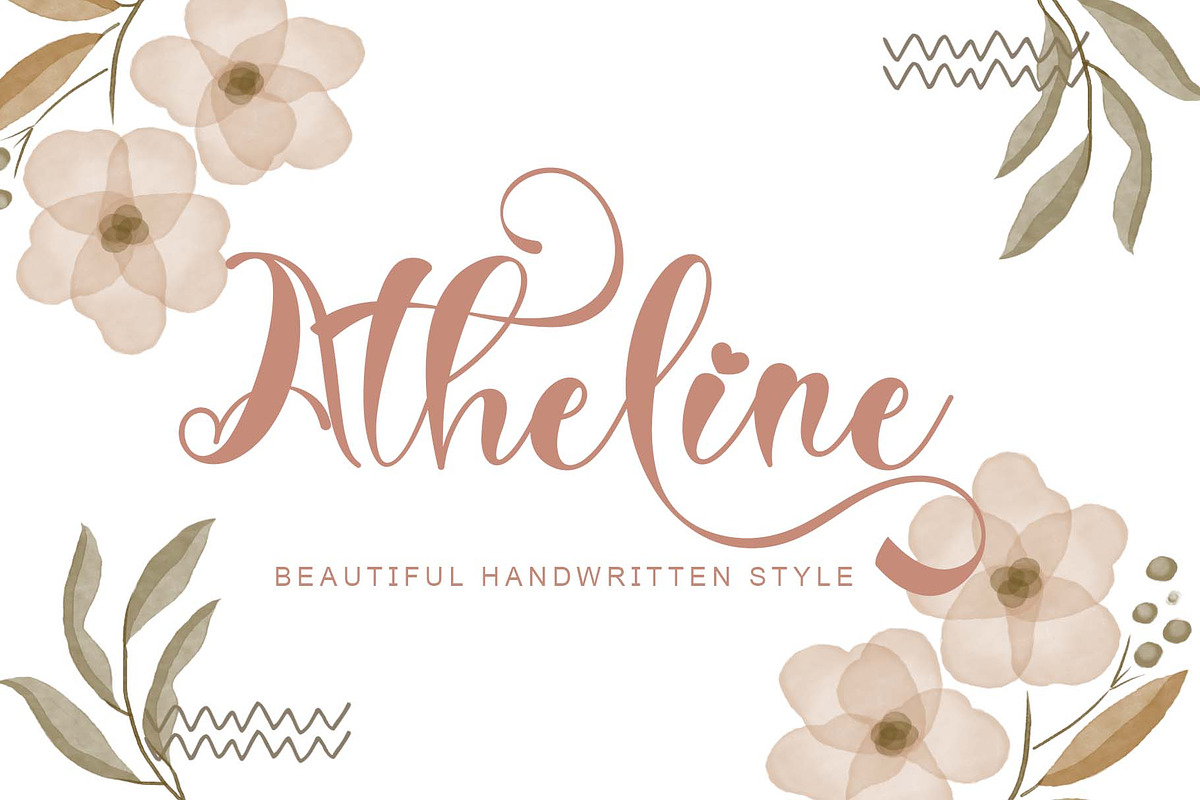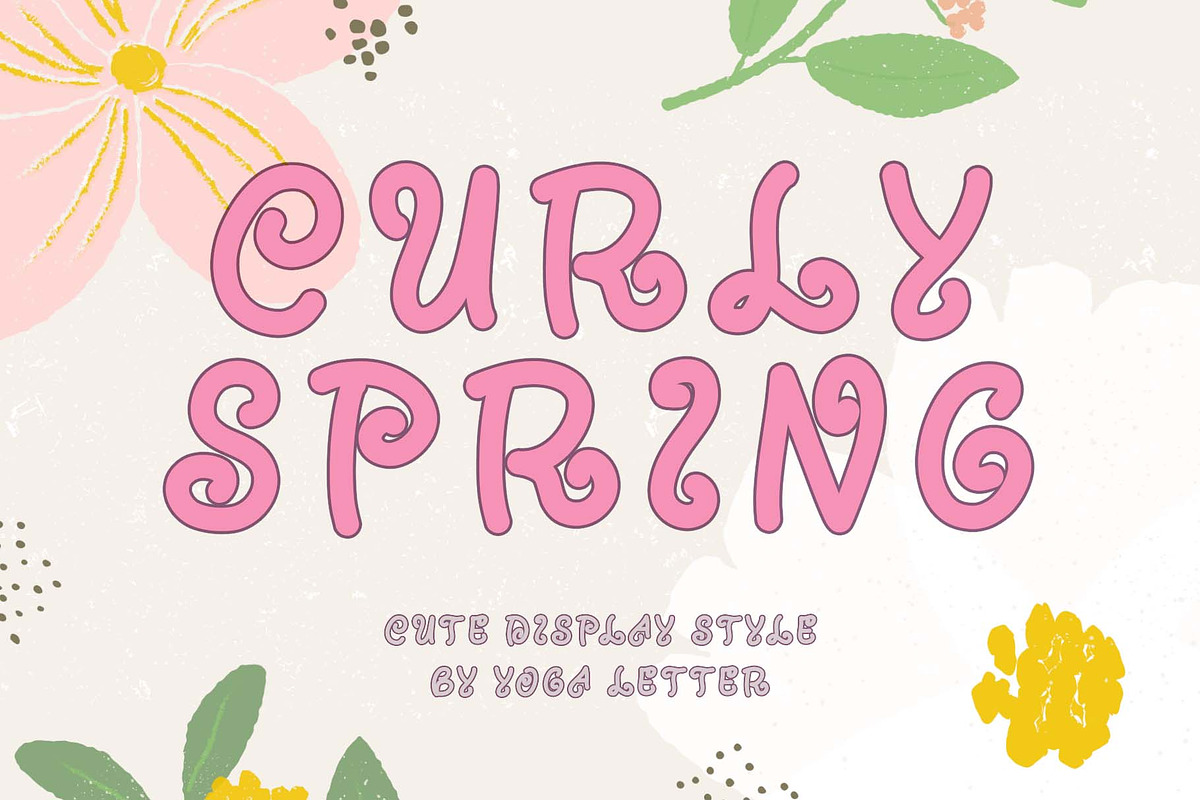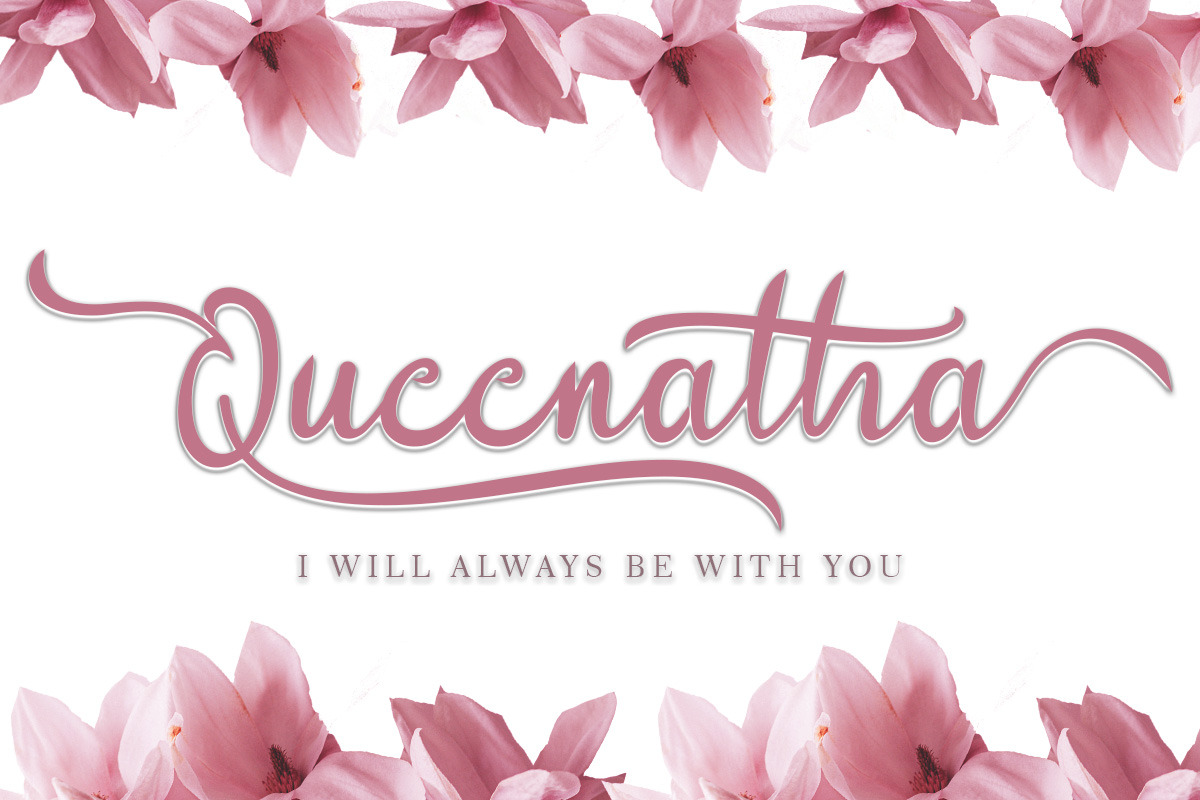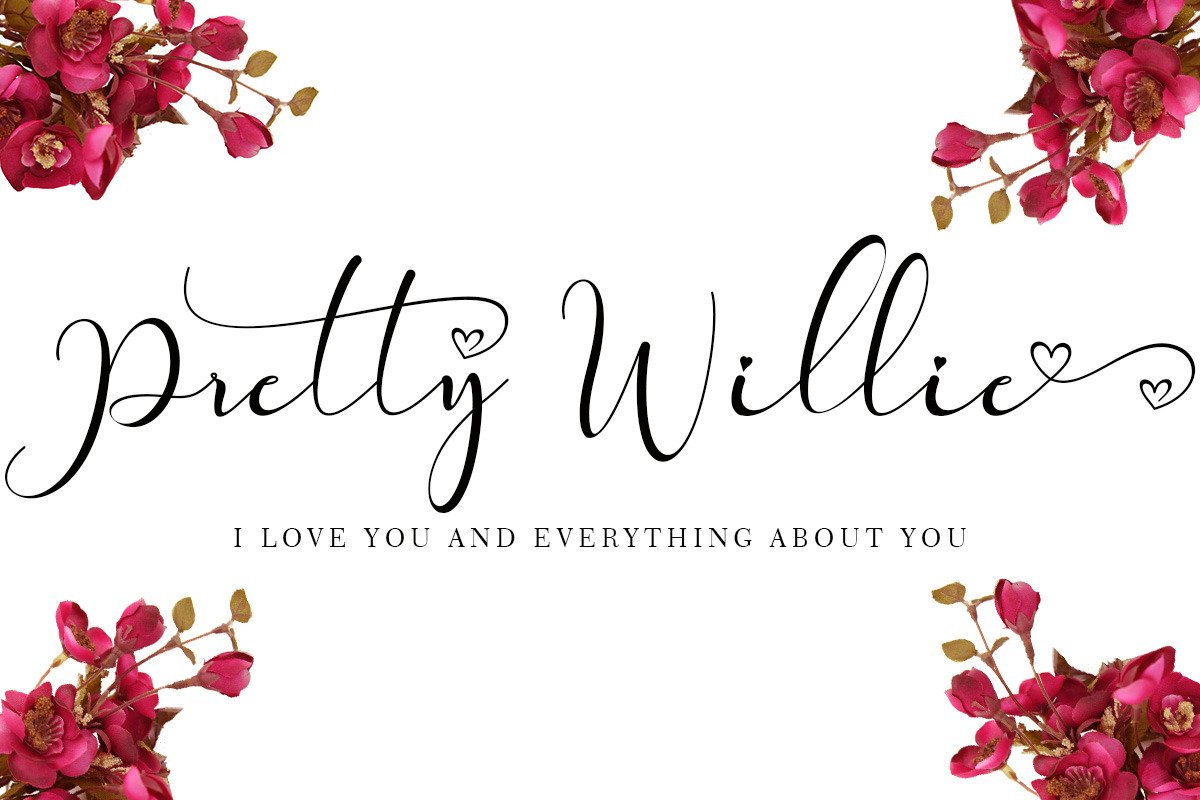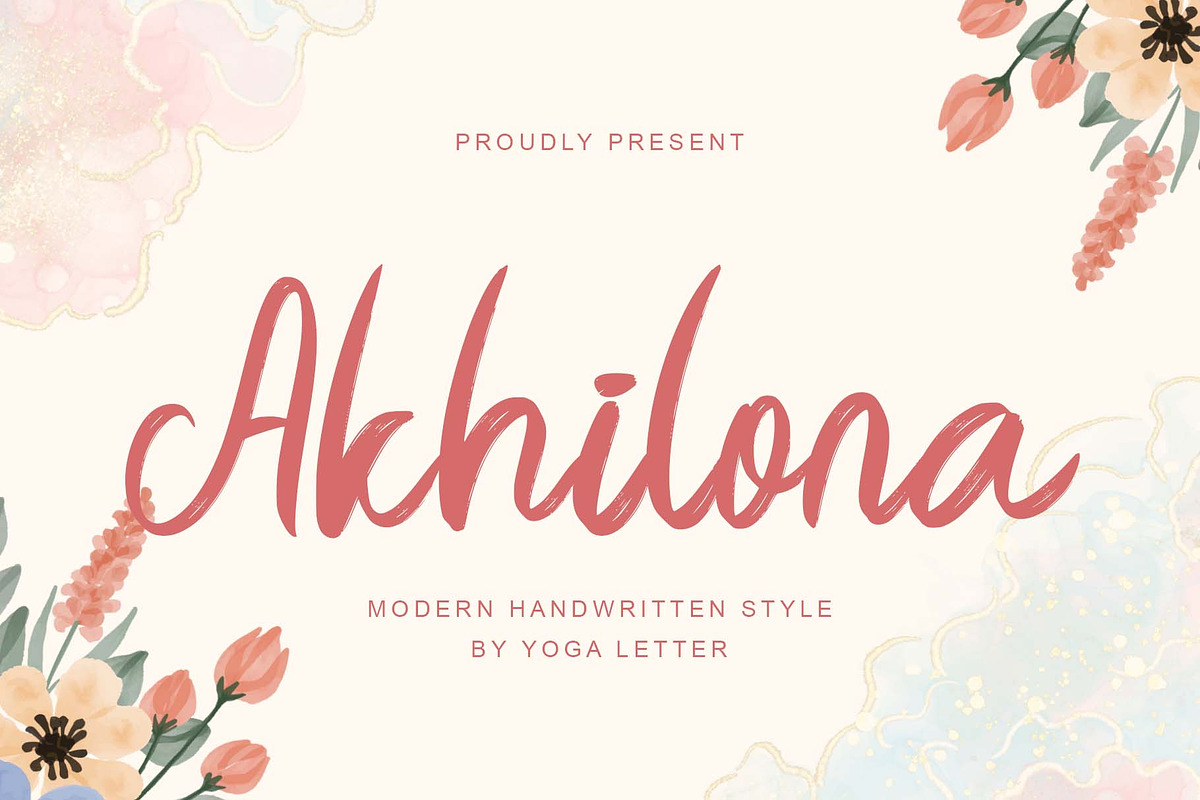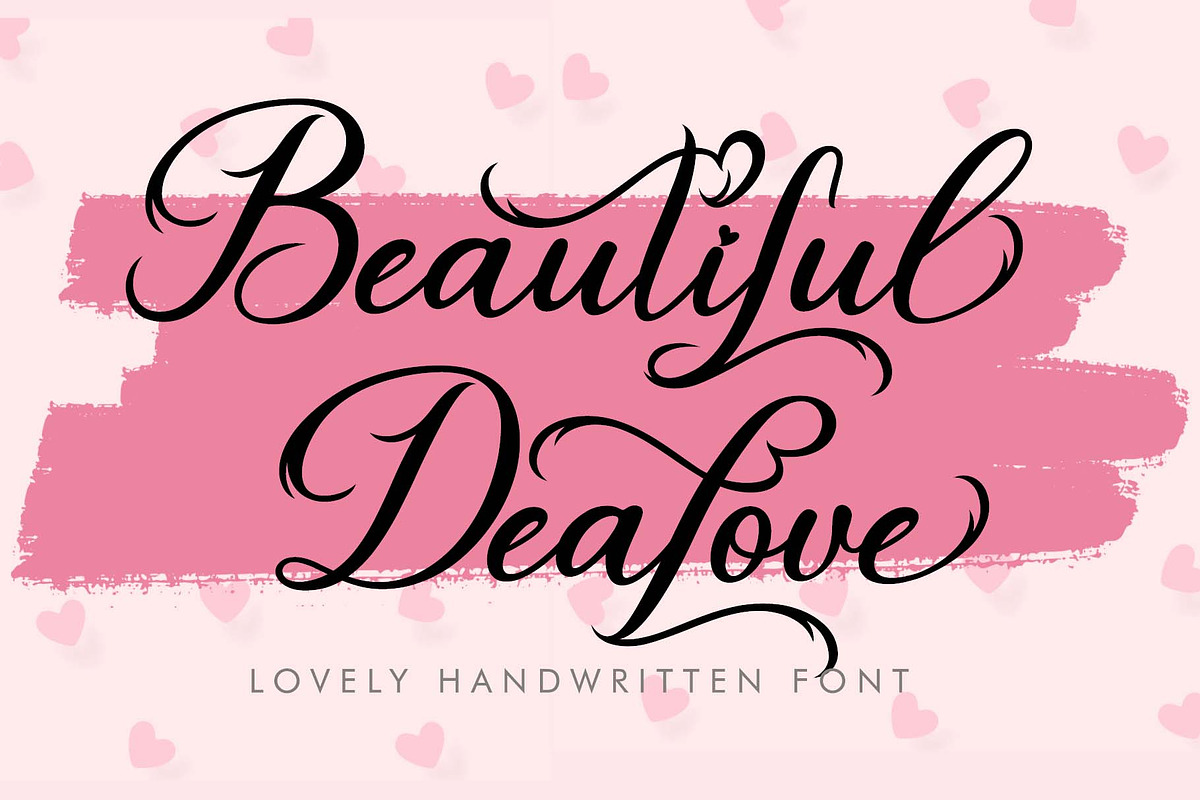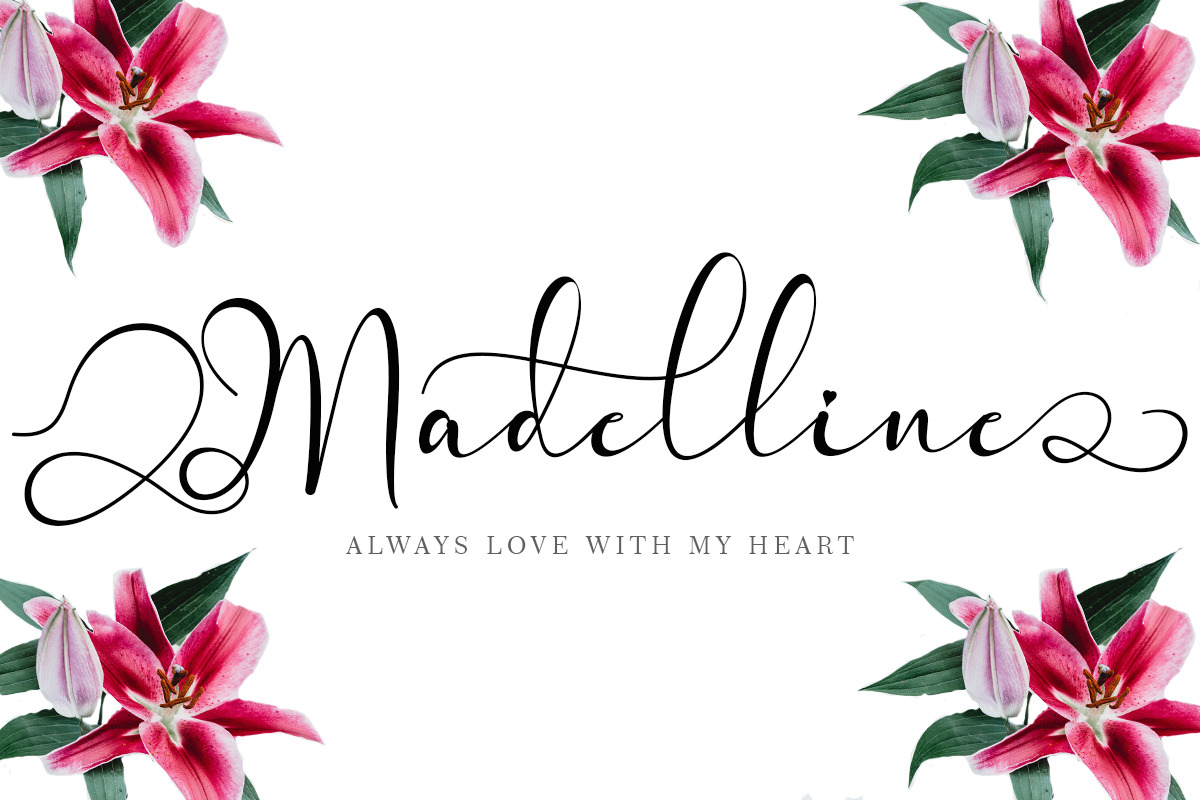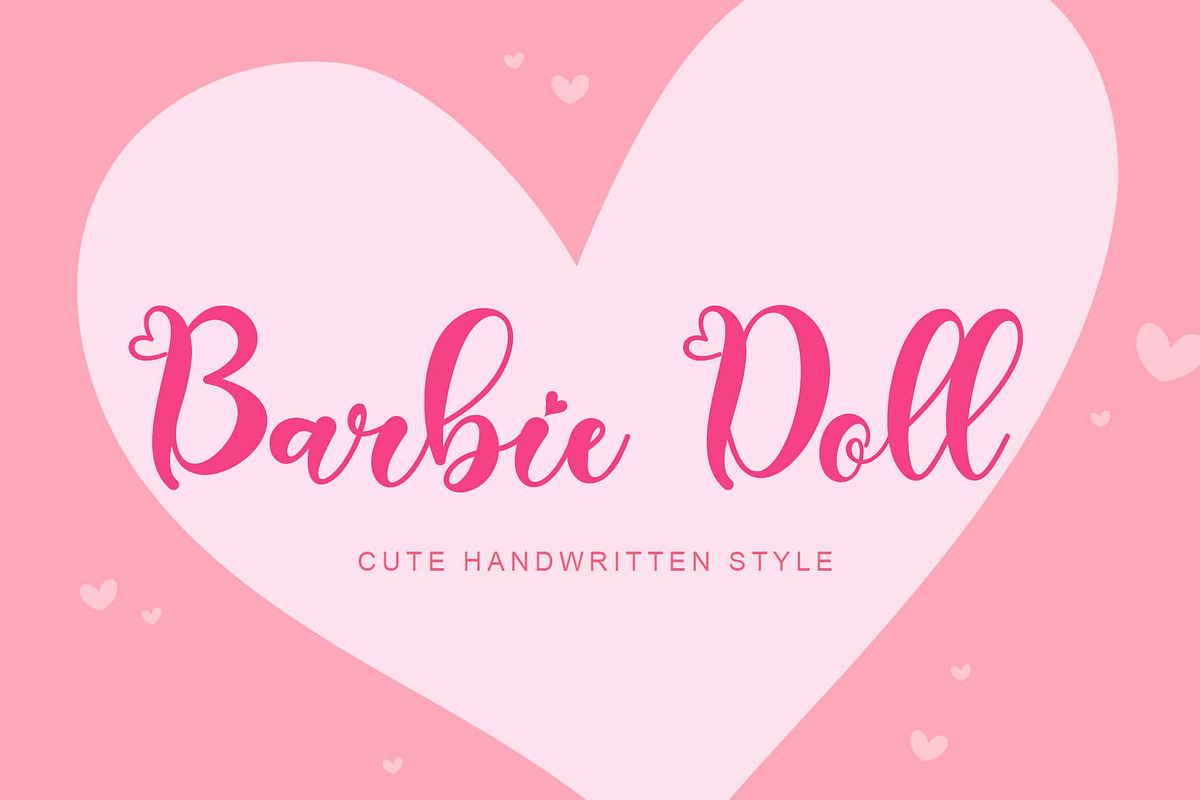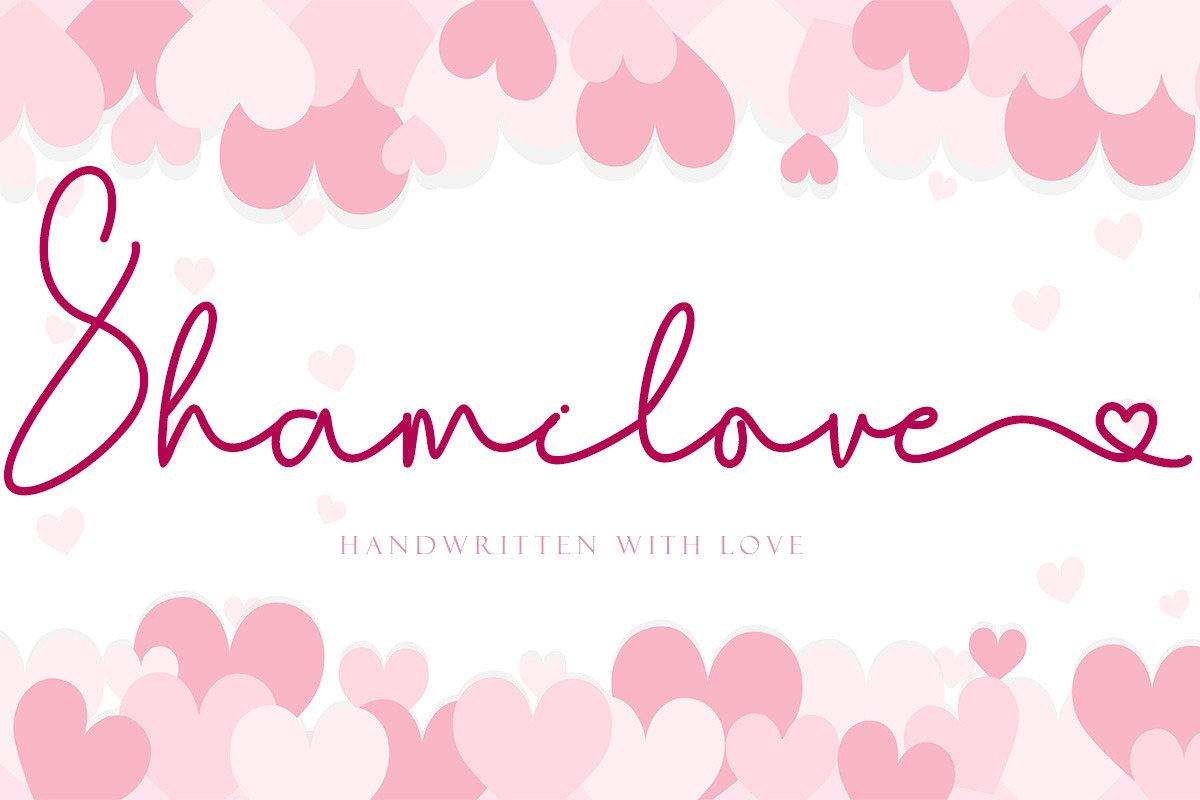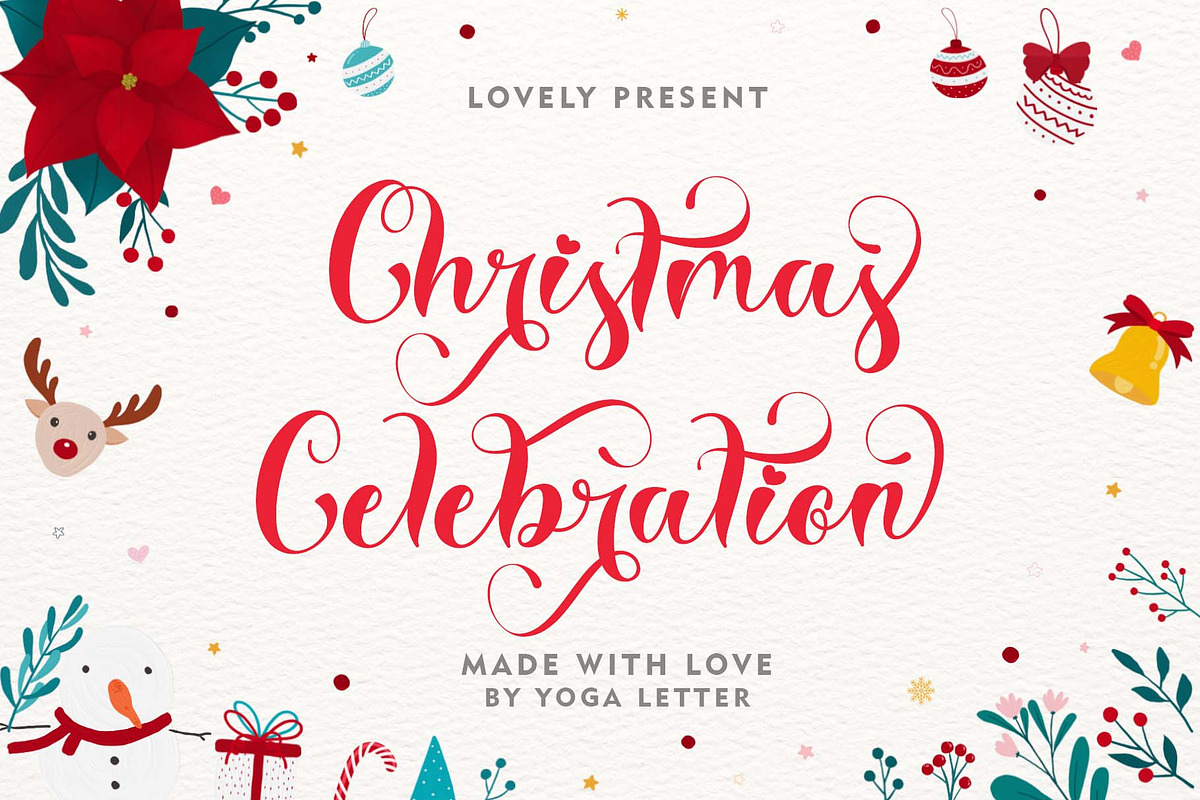
Beautiful Sweet Bundle
This bundle contains 25 beautiful fonts :
- Beautiful Dealove
- Atheline
- Christmas Celebration
- Queenatha
- Pretty Willie
- Maretha
- Shamilove
- Madelline
- Tough Mother
- Peggy Spring
- Unique Easter
- Easter Humorous
- Curly Spring
- Anabela Christmas
- Santoria Christmas
- Romellin
- Malikasthi
- Akhilona
- Barbie Doll
- Restine
- Darling Soulmate
- Father Love
- Kinanshi
- Arkite
- Christmas Shadow
This bundle is perfect for a variety of projects such as valentine, spring, summer, easter, christmas, halloween, fall, autumn, back to school, weddings, designs, branding, logos, invitations, stationery, social media posts, advertisements, product packaging, product designs, labels, photography, valentine, easter, mother day, father day, watermarks, special events or whatever.